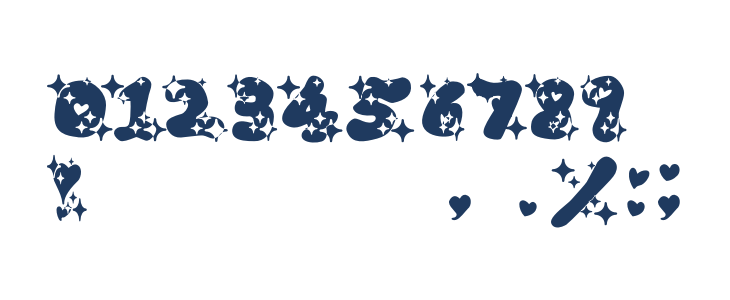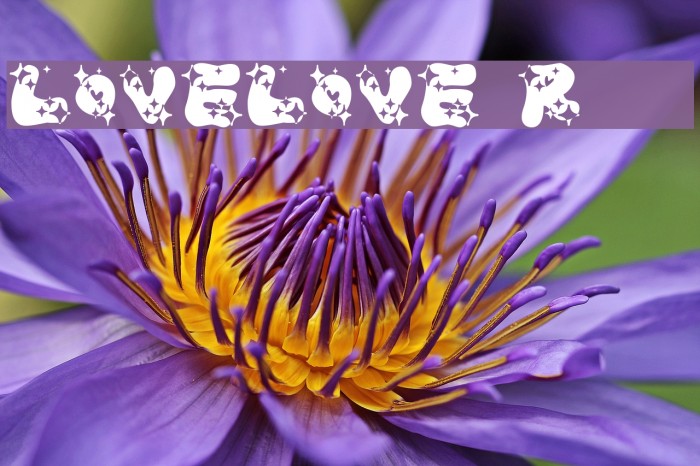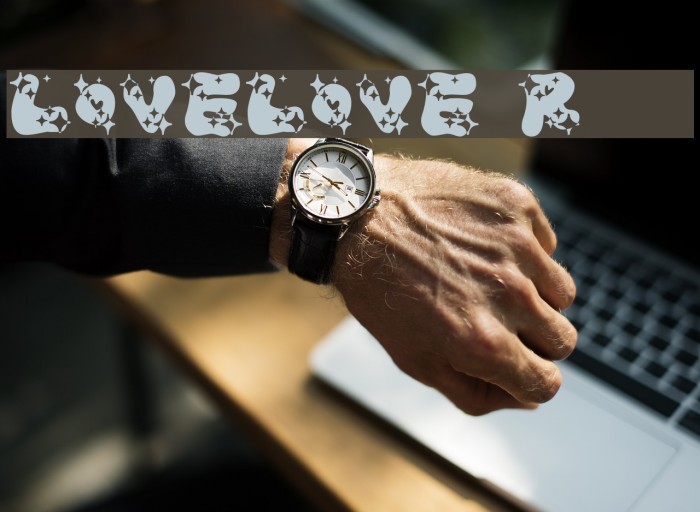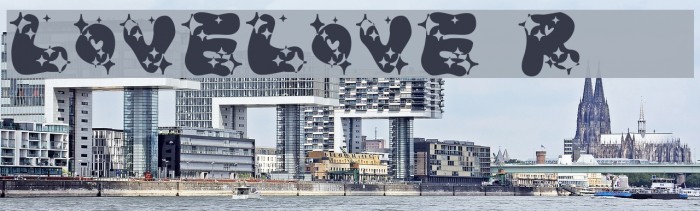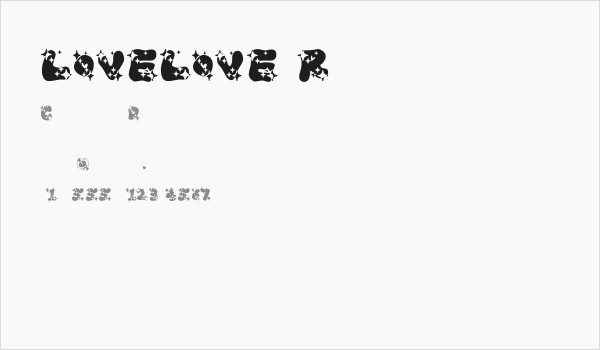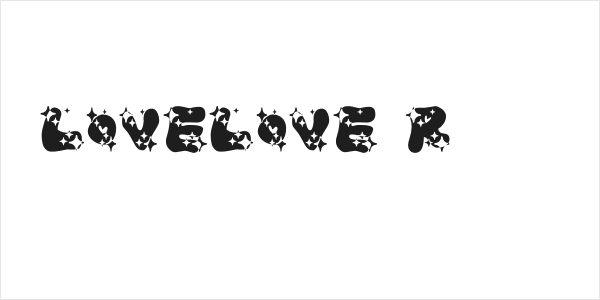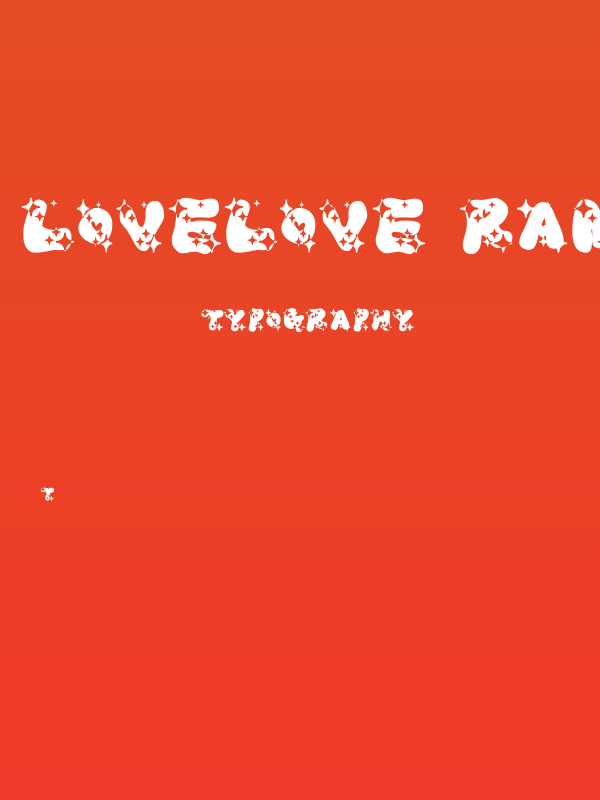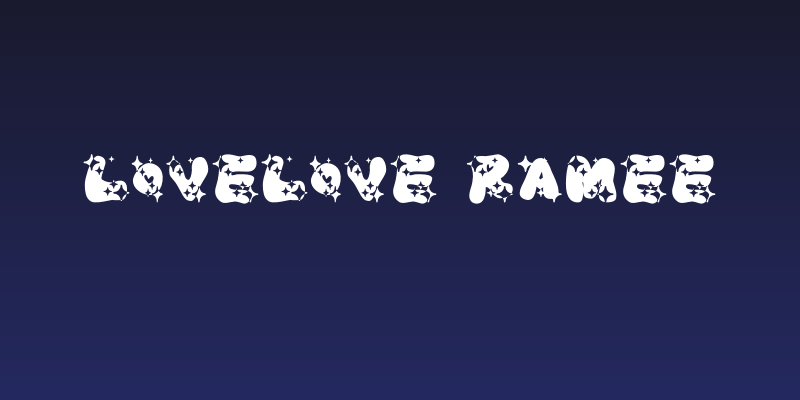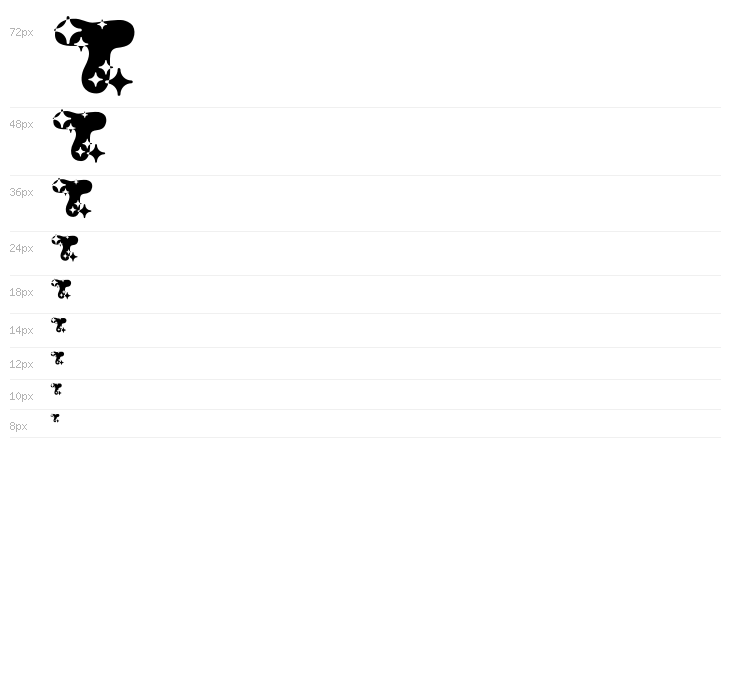
LOVELOVE_Ramee Font
LOVELOVE_Ramee Description
This playful and decorative font features bold, rounded characters adorned with star-like embellishments, creating a whimsical and eye-catching appearance. The uppercase letters are consistent in their boldness, while the numbers and special characters maintain the same decorative style. The font's unique design makes it ideal for projects that require a fun and lively touch. Its distinct style is perfect for capturing attention and adding a sense of joy and creativity to any design.
| Use Case | Headlines, Posters, Invitations |
| Proposed Projects | Ideal for children's book covers, party invitations, playful branding, and festive posters. |